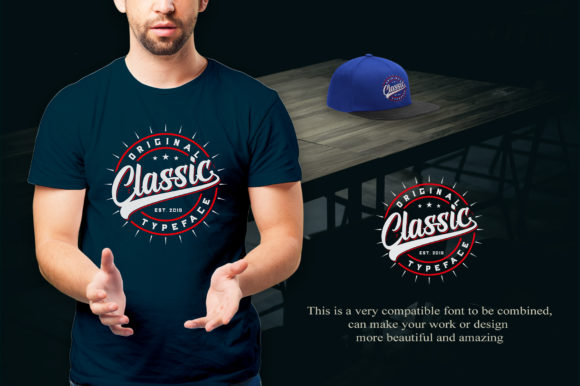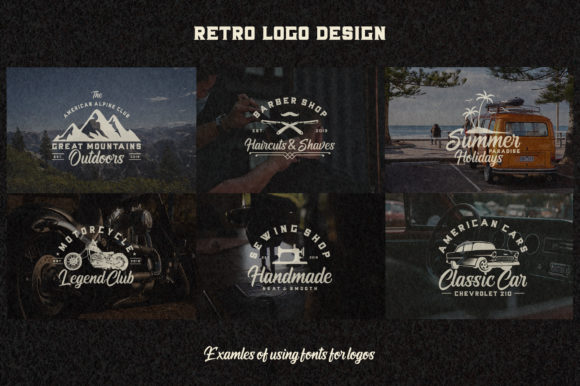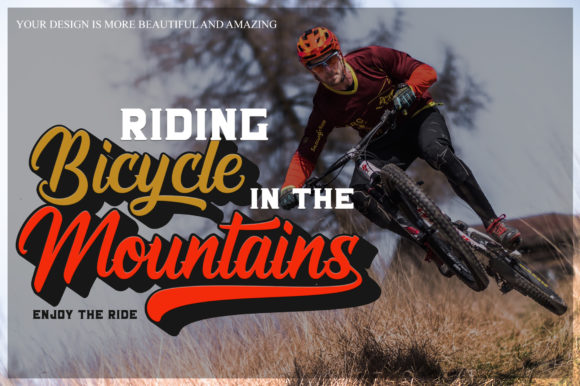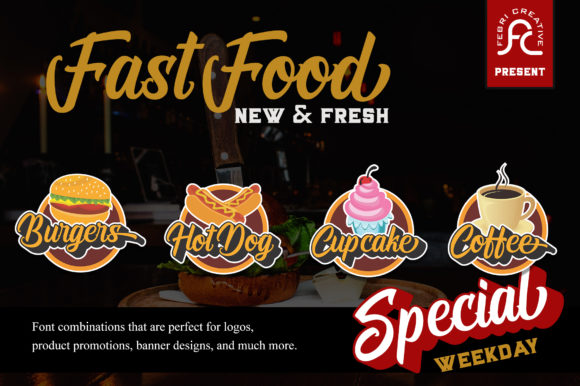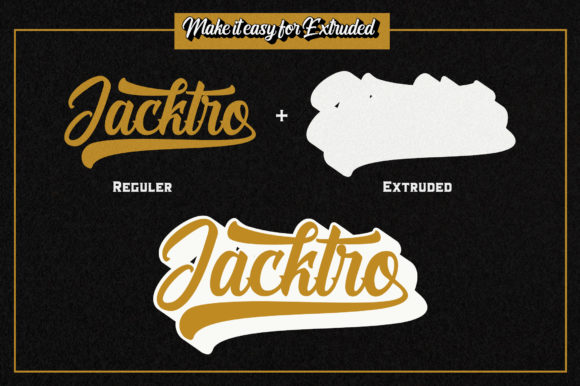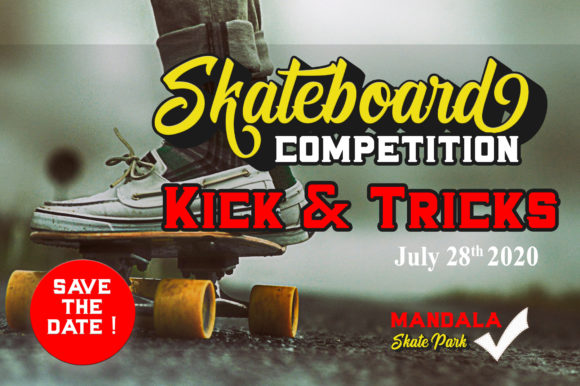
Introduction to Jacktro Font
Jacktro is a modern and cool handwritten font with a unique style.
Get inspired by its cool feel .
Key Features of Jacktro Font
Why Choose Jacktro Font?
Jacktro Font offers exceptional quality and versatility, making it a valuable addition to your design toolkit. Whether you’re creating for personal projects or commercial use, Jacktro Font delivers professional results.